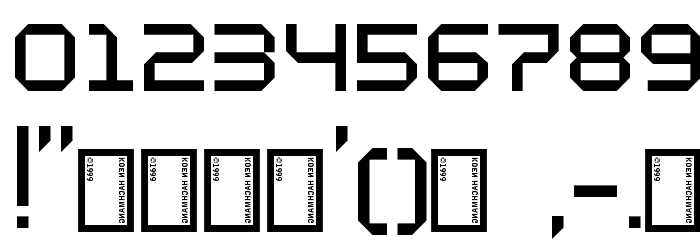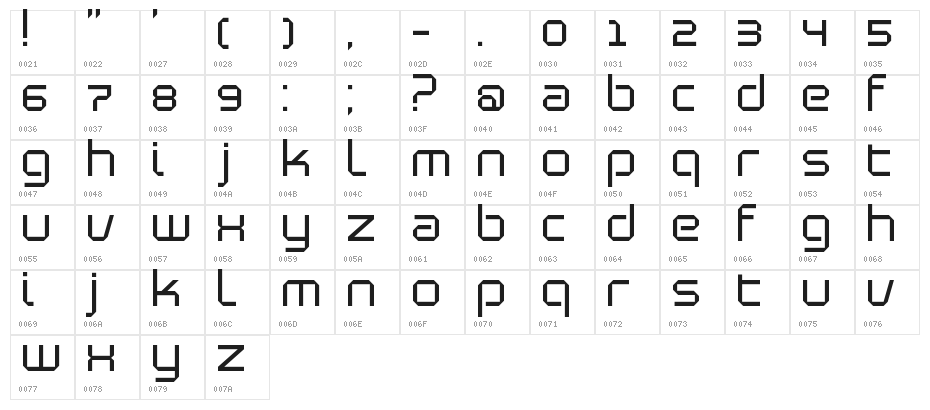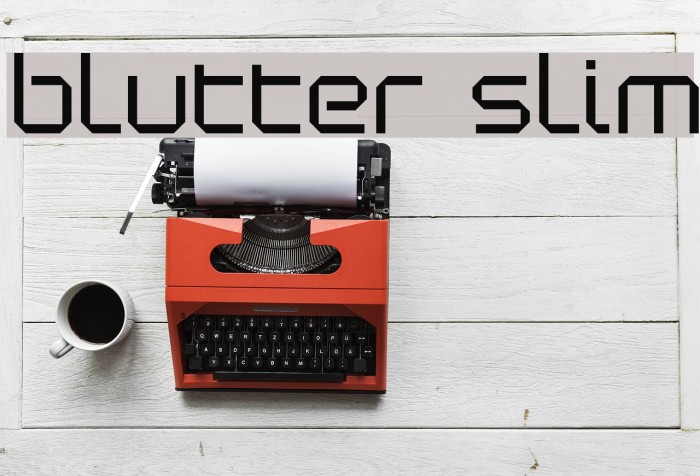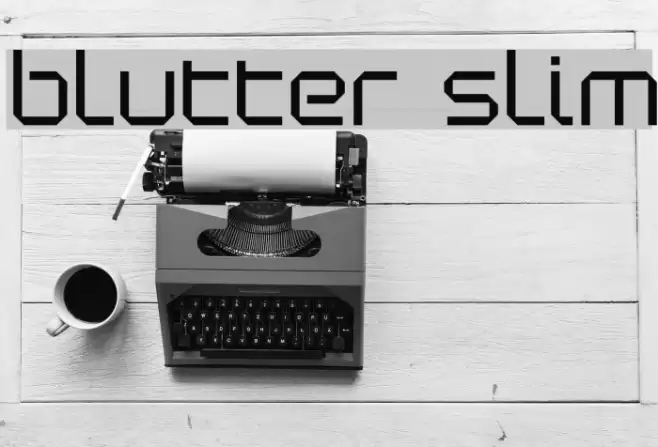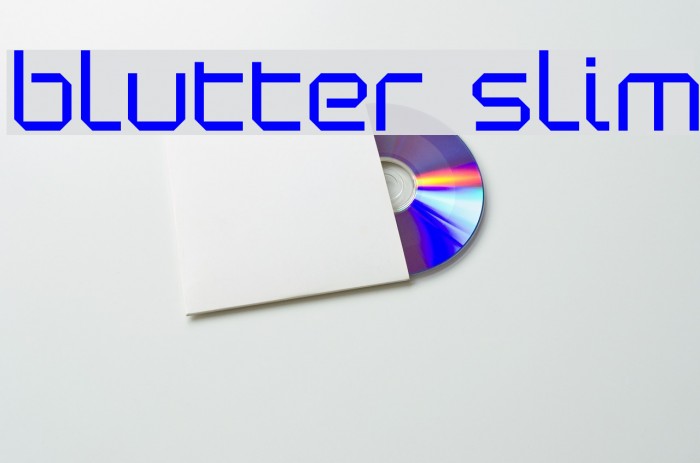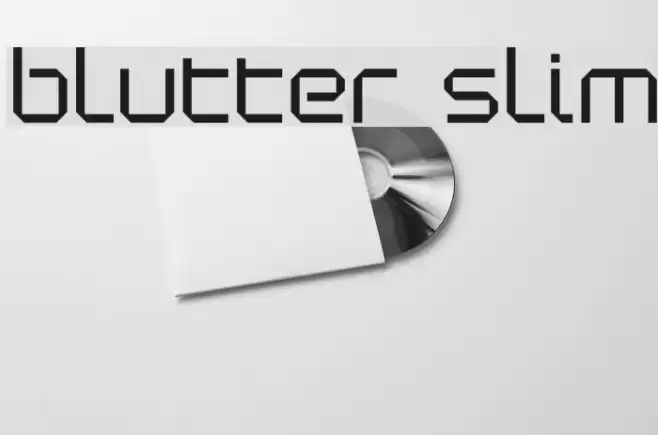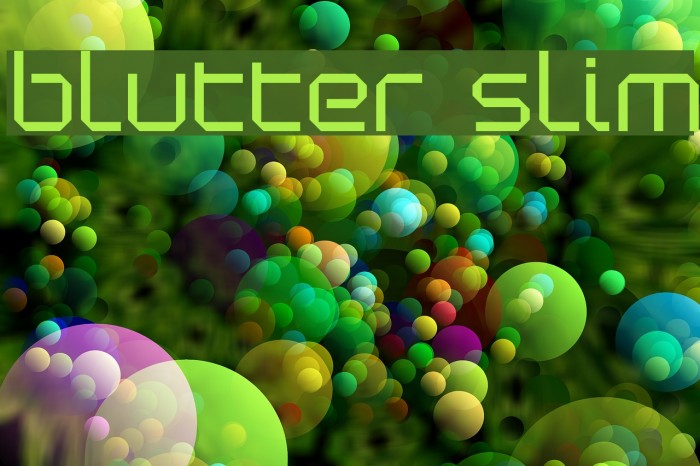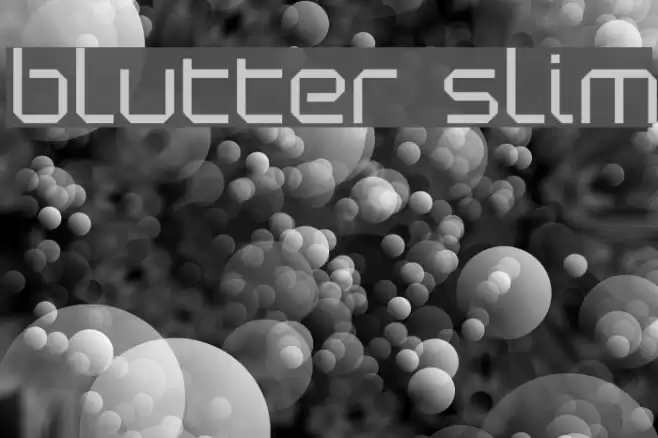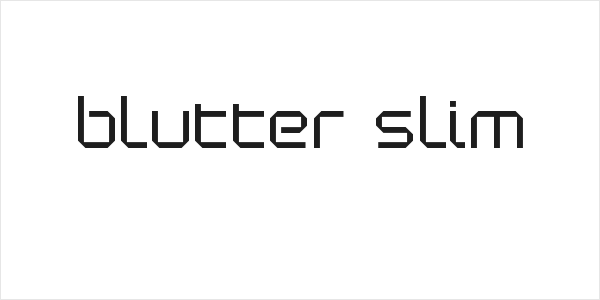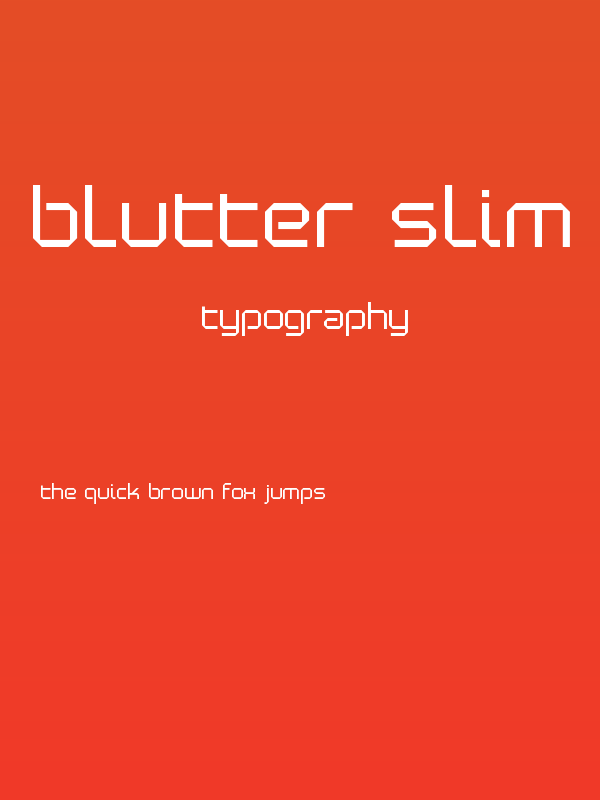
Blutter Slim Font
Blutter Slim Description
This font features a geometric and modern design, characterized by its angular and block-like structure. The characters are constructed with straight lines and sharp corners, giving it a futuristic and digital appearance. The uppercase and lowercase letters maintain a consistent height, contributing to a uniform look. The numerals and special characters follow the same design principles, ensuring a cohesive style throughout. The font's clean and minimalistic aesthetic makes it suitable for contemporary projects that require a bold and distinctive typeface.
| Use Case | Logos, Headlines, Digital interfaces |
| Proposed Projects | Ideal for digital interfaces, tech branding, futuristic designs, and video game graphics. |